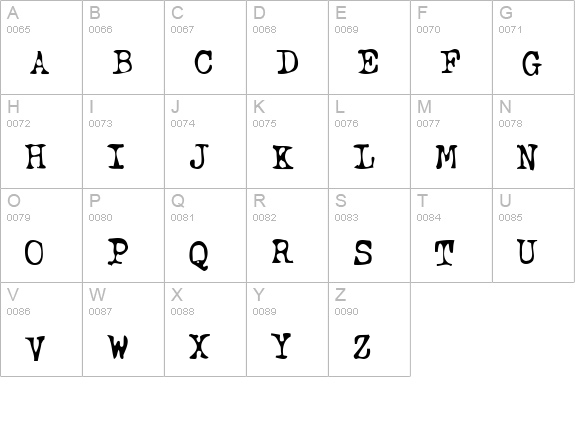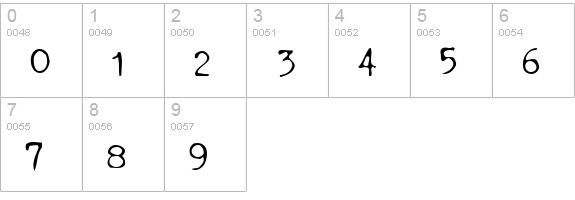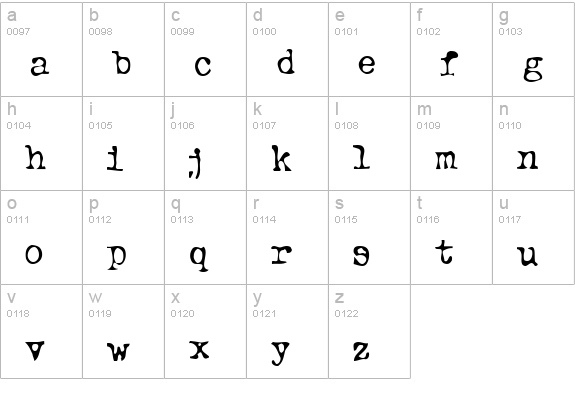
Typewriter Oldstyle Font Details
Introducing Typewriter Oldstyle font, a timeless and classic typeface that brings a touch of nostalgia to any design project. With its vintage charm and elegant simplicity, this font effortlessly captures the essence of old typewriters, evoking a sense of nostalgia for the days when words were meticulously crafted on paper. Typewriter Oldstyle font exudes a sense of authenticity and craftsmanship, as each character carries the subtle imperfections that were characteristic of typewritten text. Its slightly uneven letterforms and irregular spacing lend a distinct personality to your designs, making them stand out from the crowd. This font is perfect for various creative endeavors, from vintage-inspired branding and logo designs to book covers, posters, and even social media graphics. Whether you're aiming for a retro aesthetic or simply looking to add a touch of character to your project, Typewriter Oldstyle font is the ideal choice. The best part? Typewriter Oldstyle font is freely available to download at FontsMarket.com. This means that you can bring the charm of typewritten text to your designs without breaking the bank. With just a few clicks, you can access this beautiful typeface and start incorporating its timeless appeal into your creative work. Don't miss out on the opportunity to add a touch of vintage elegance to your designs. Download Typewriter Oldstyle font today from FontsMarket.com and embark on a typographic journey that will captivate and inspire.